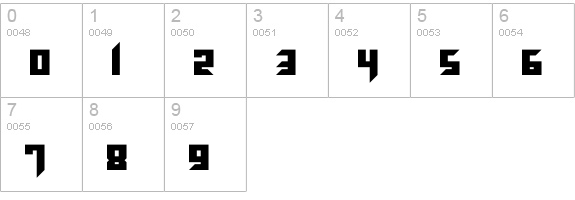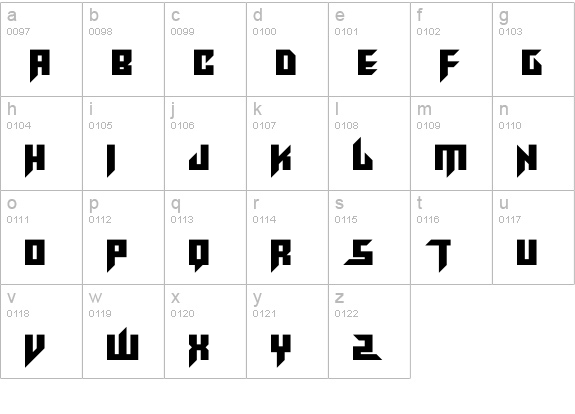
Rave King Font Details
Rave King is a free for personal use font in the Modern > Techno category, designed by Darrell Flood. It has been downloaded 175 times and is available for Windows, Mac and Linux.
The Rave King font is a vibrant and energetic typeface that exudes a sense of fun and excitement. With its bold and dynamic letterforms, this font is perfect for capturing the electrifying atmosphere of a rave party or any high-energy event. The Rave King font is sure to make your designs stand out and grab attention with its modern and edgy style.